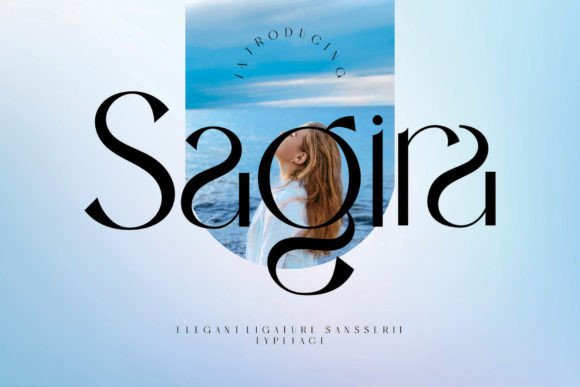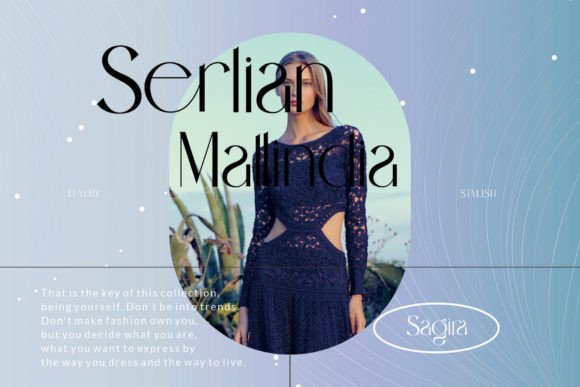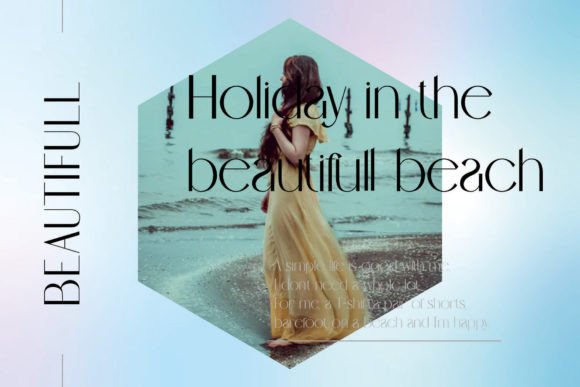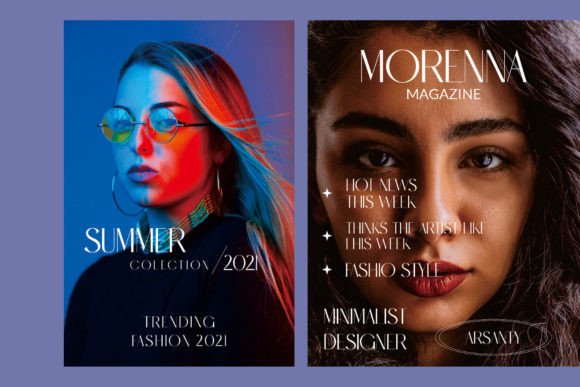
Sagira Font
About the Sagira Font
Unleash your creativity with Sagira Font, a versatile font perfect for a wide range of applications. **Sagira** Modern Sans Serif Typeface inspired by the famous minimalist logo perfect for the purposes of designing templates, brochures, videos, advertising branding, logos, invitations, layout design, elegant crafting, beauty design, and others.
Sagira’s clean lines and geometric structure make it ideal for headlines, logos, and short, impactful text within branding materials and advertising. Its minimalist aesthetic also lends itself well to packaging design, particularly for products emphasizing sophistication and modern appeal. However, its limited x-height makes it unsuitable for extended body text or UI elements where readability is paramount.
To complement Sagira’s modern feel, consider pairing it with a classic serif like Garamond for a balanced contrast, or a warmer, rounded sans-serif such as Lato for a more approachable feel. For a bolder statement, a geometric sans-serif like Futura can create a cohesive, high-impact design.
Sagira projects a sophisticated, modern, and confident personality, making it a strong choice for brands seeking a clean and refined aesthetic.
Sagira Font Usage Examples